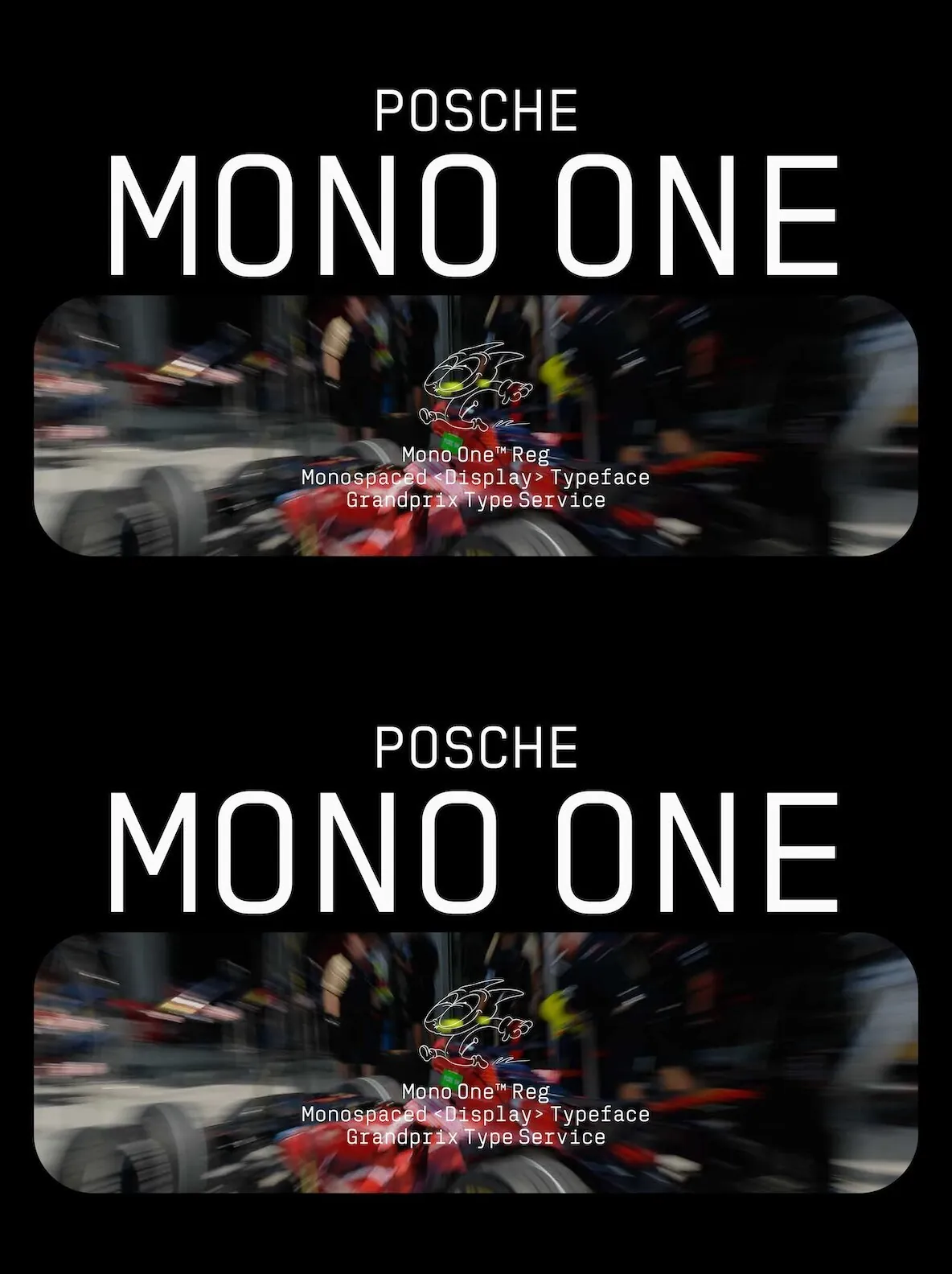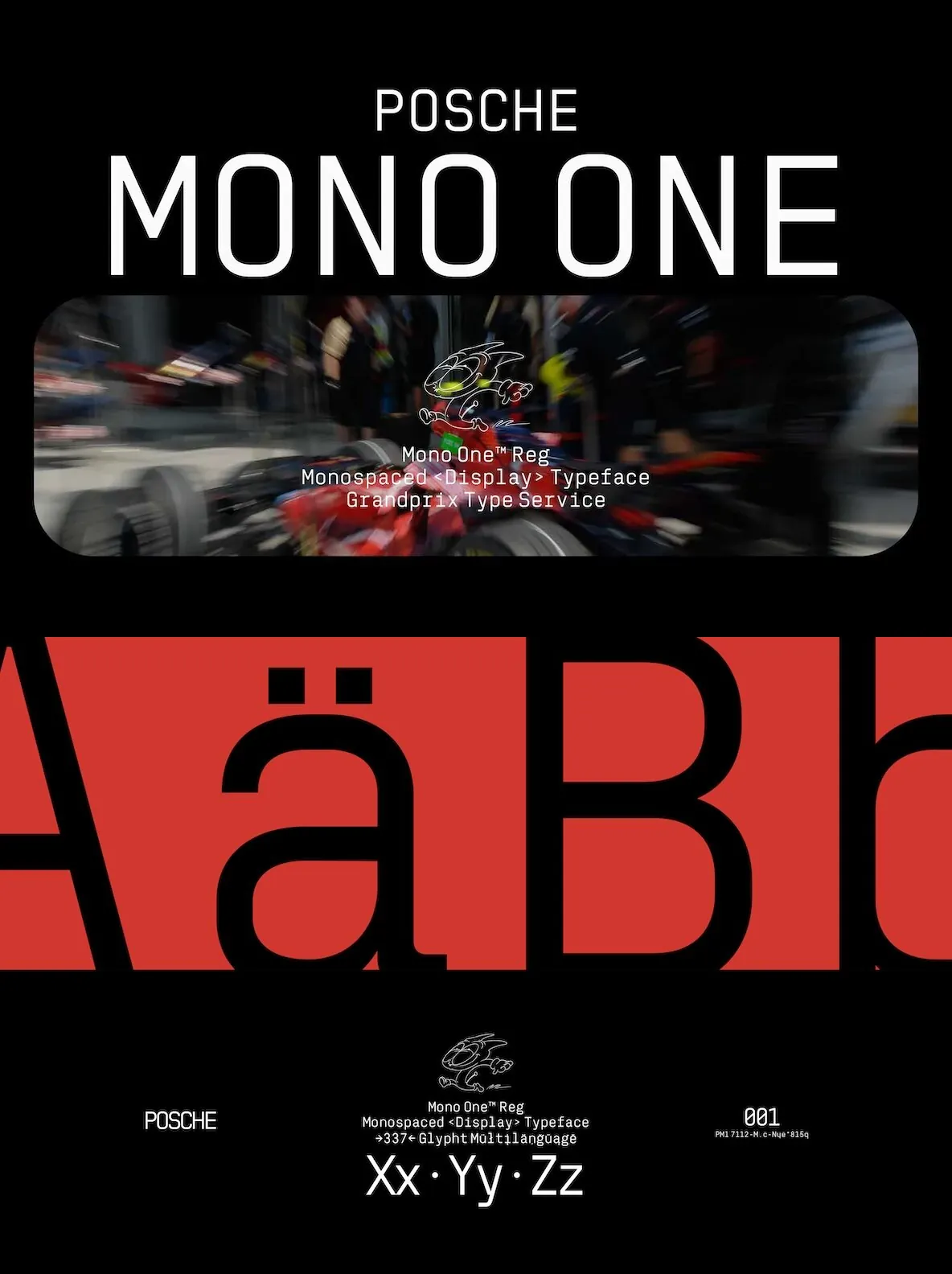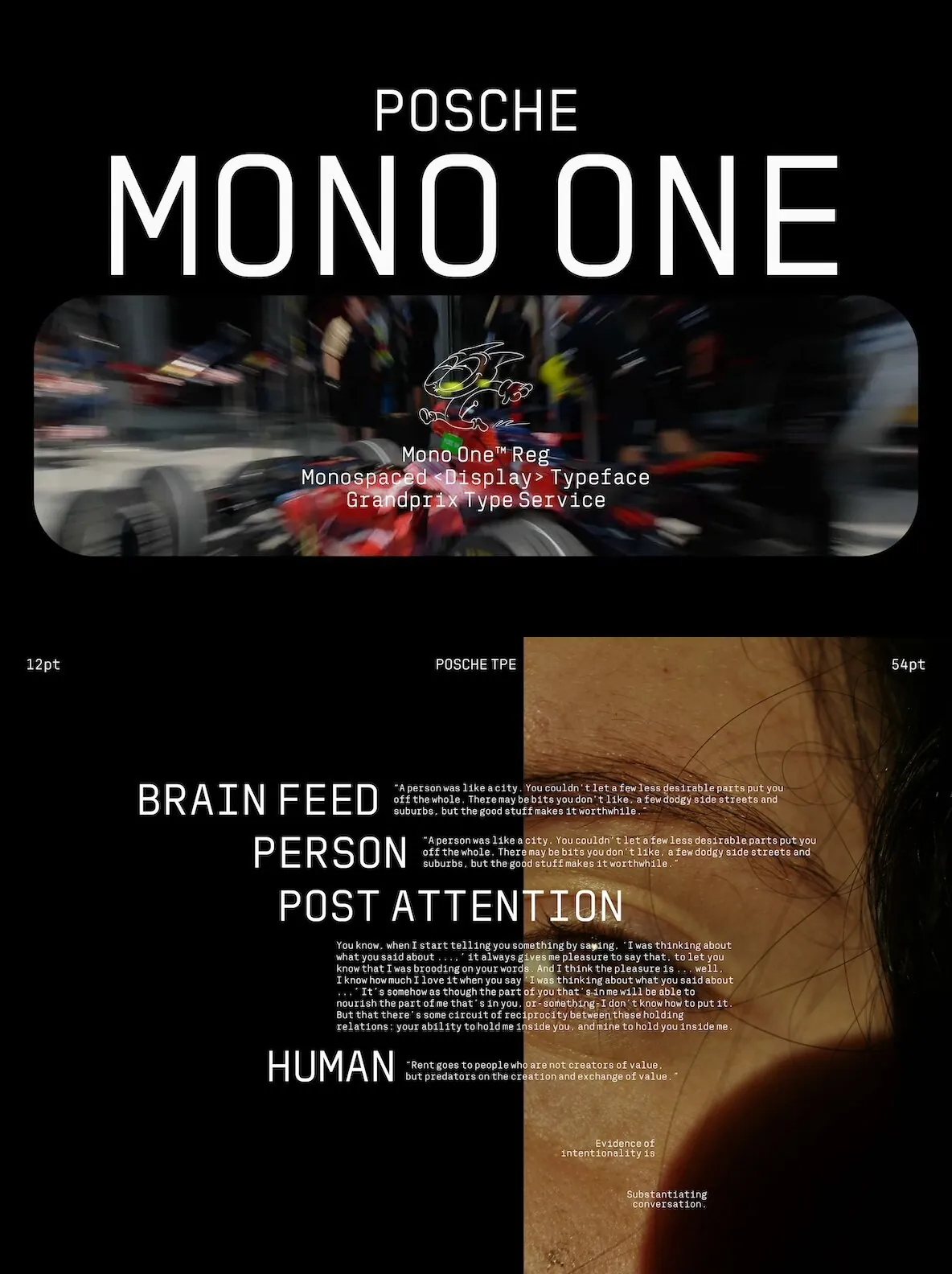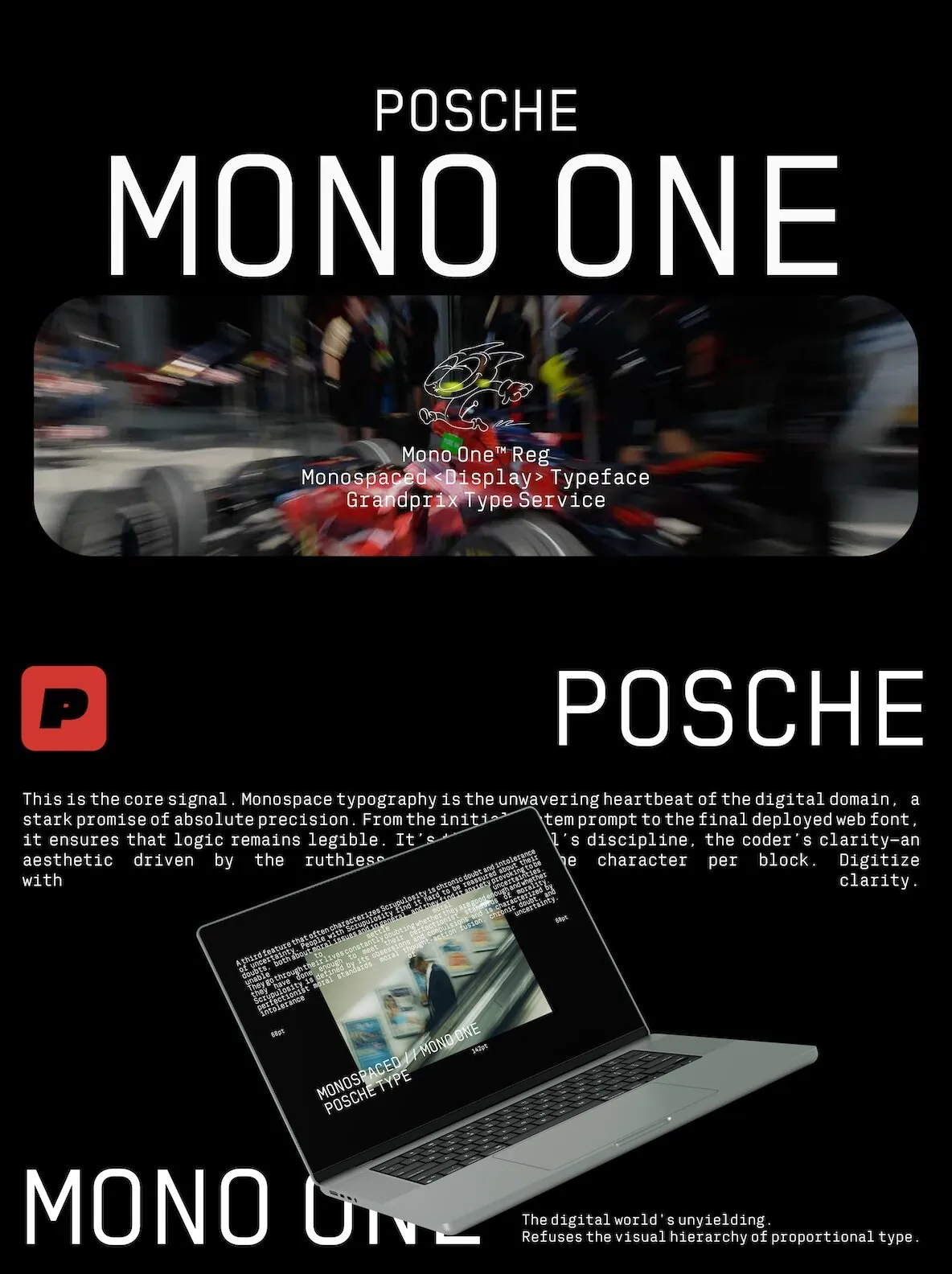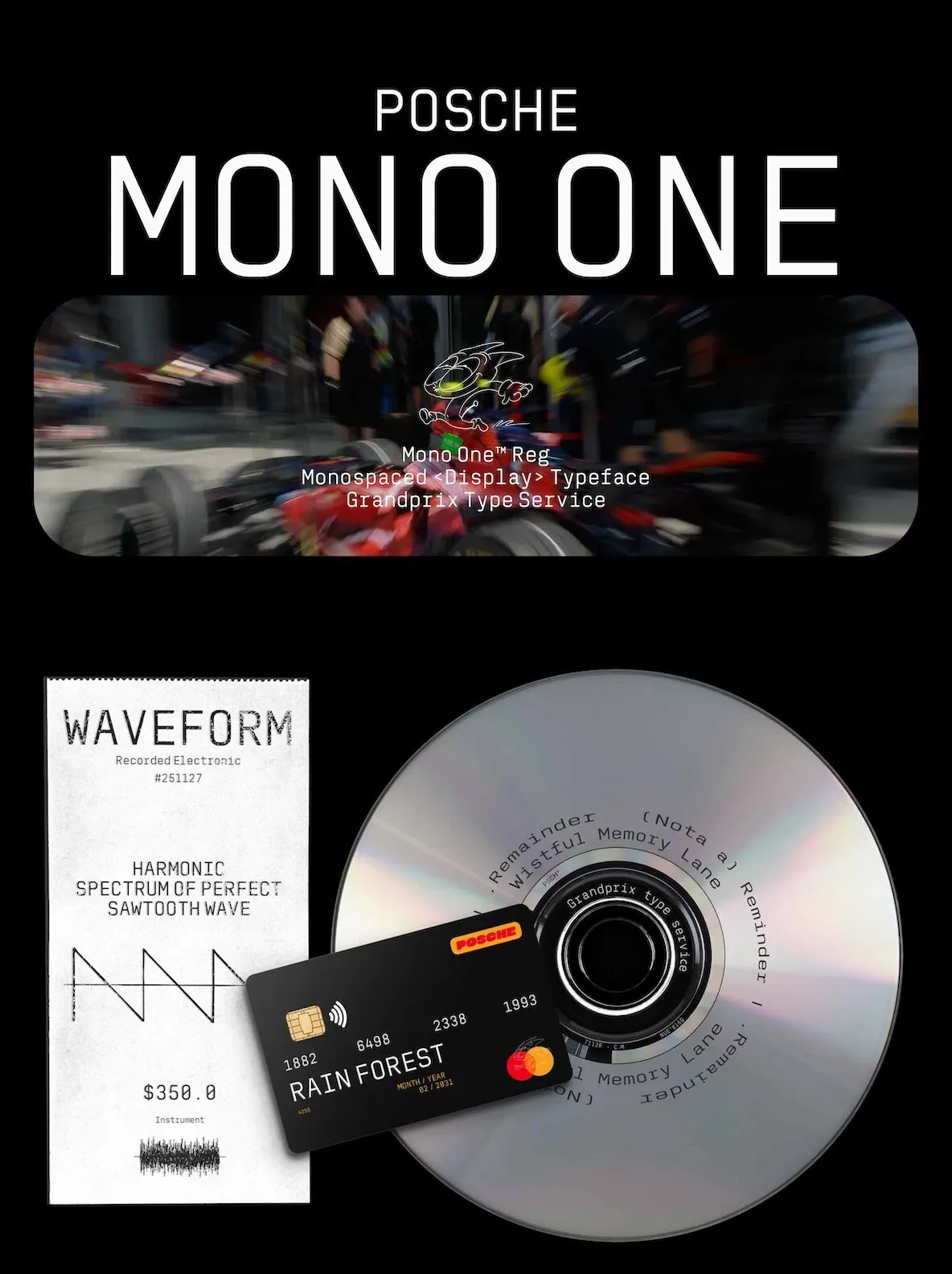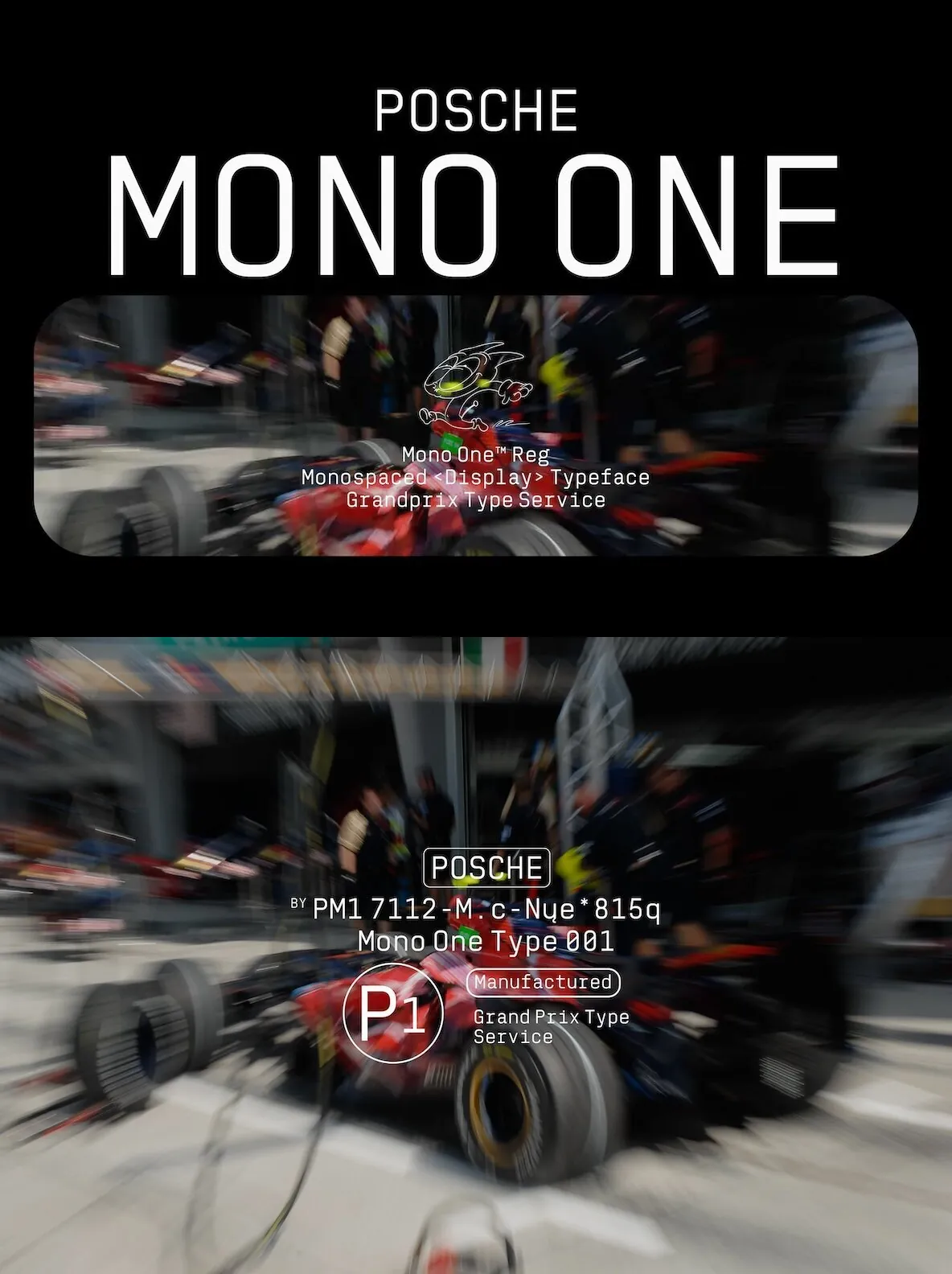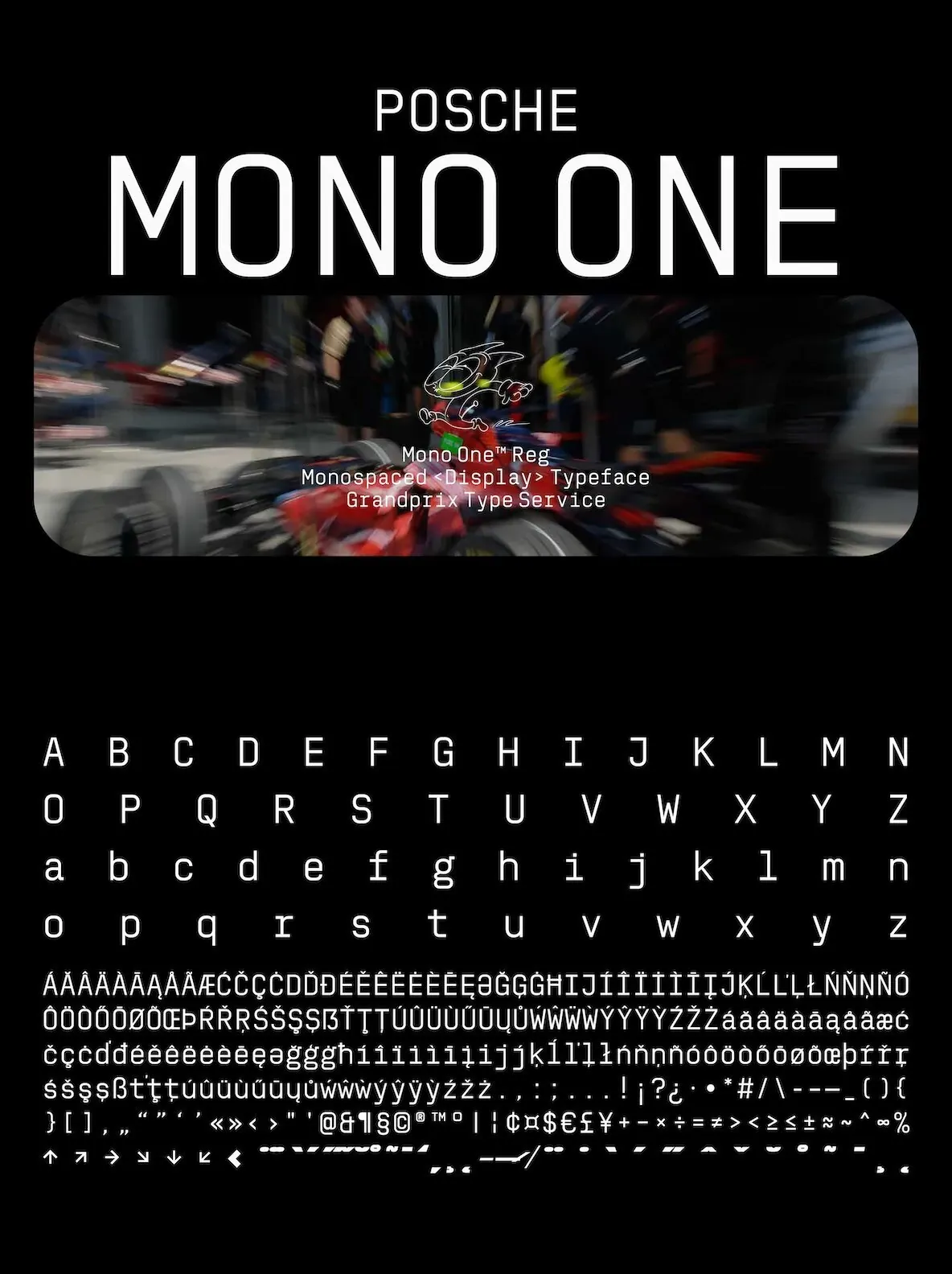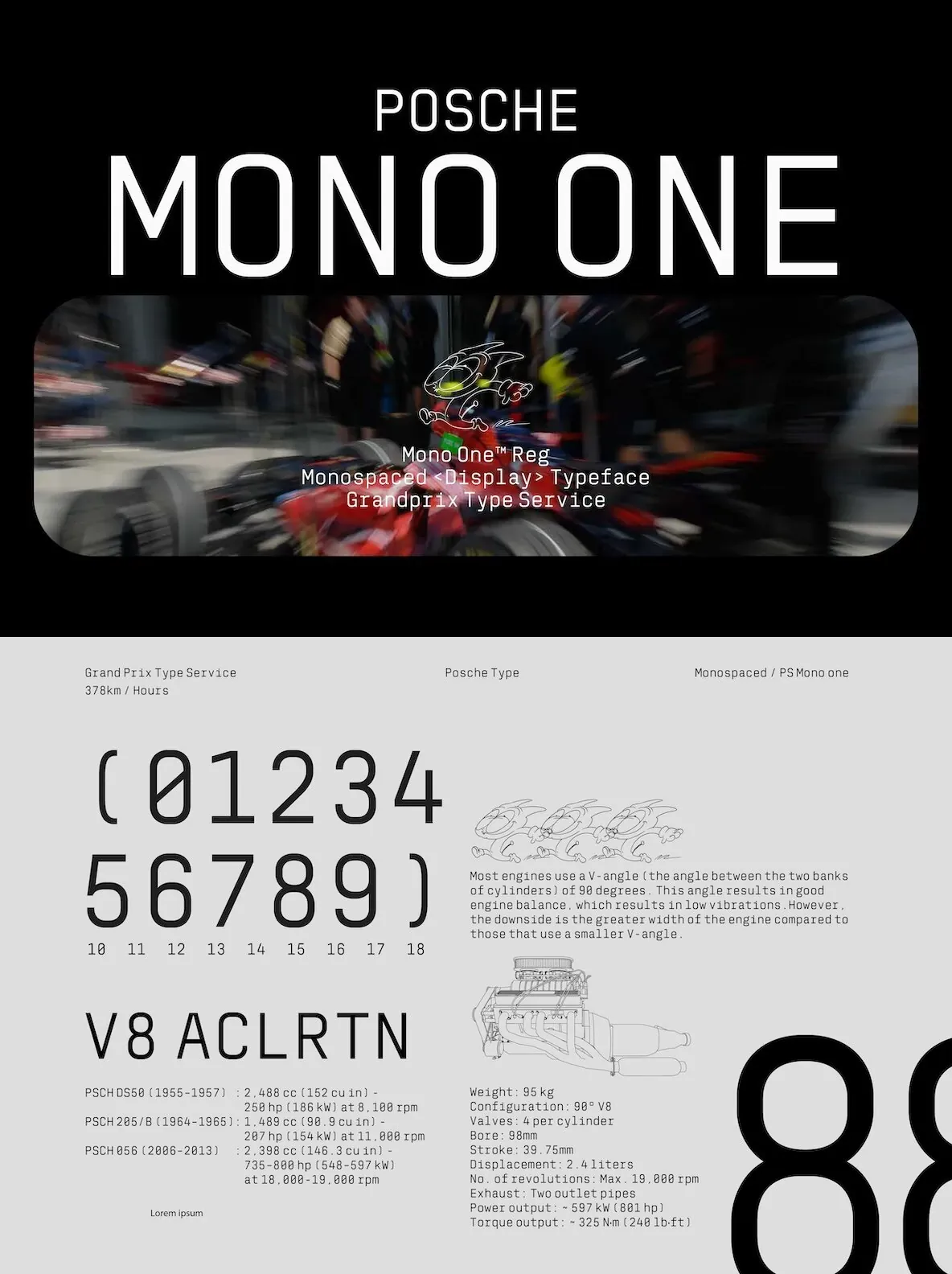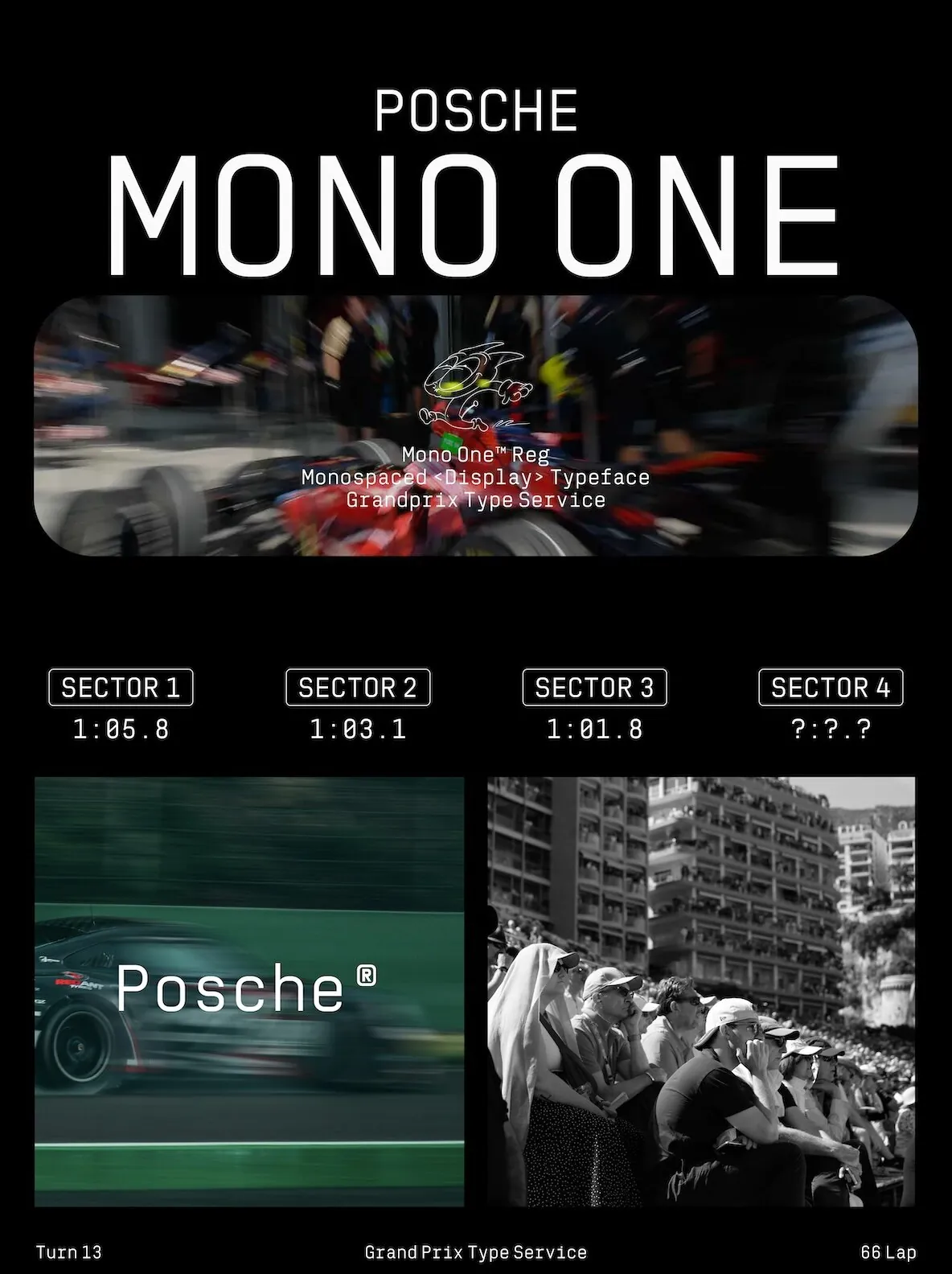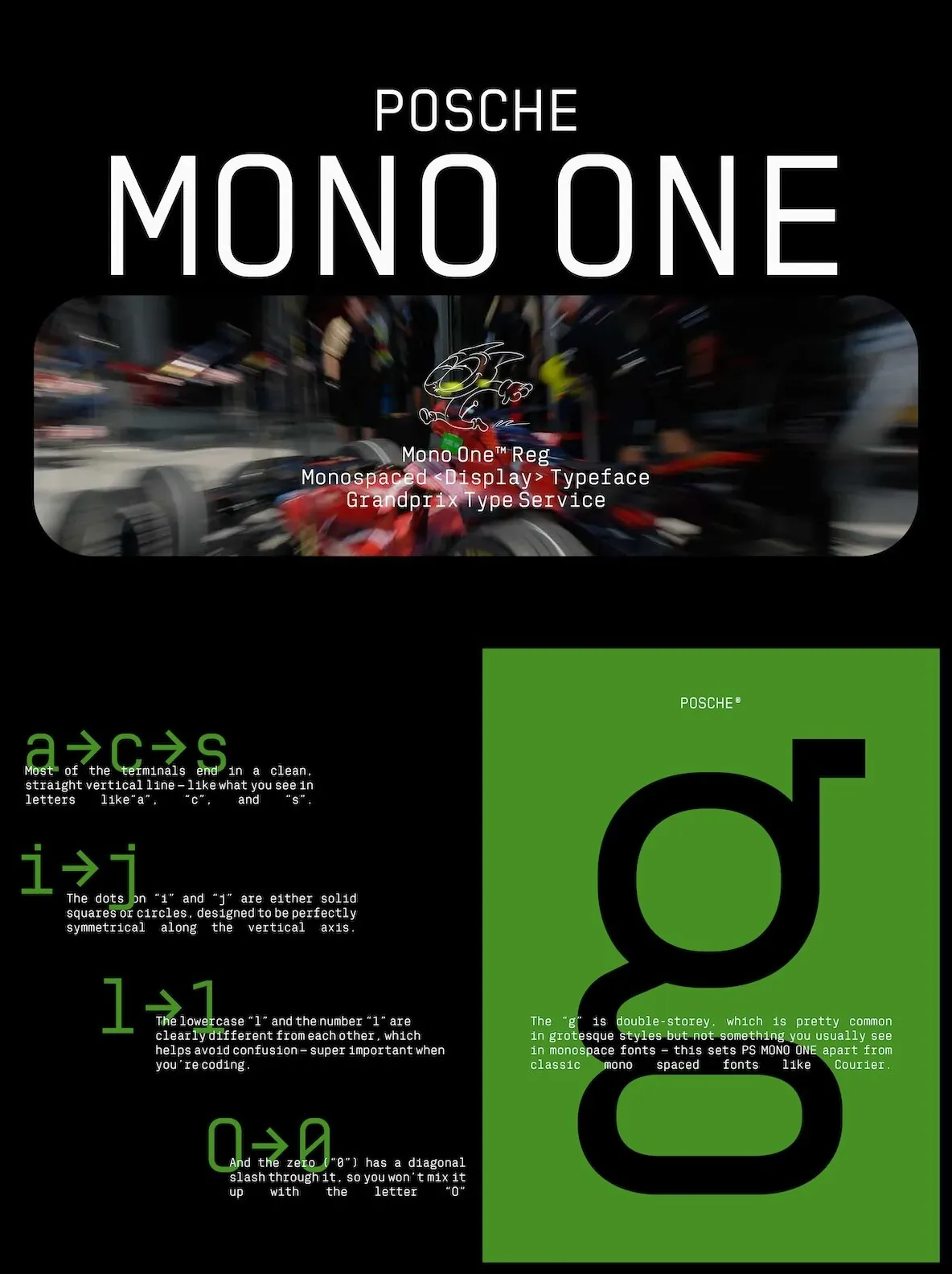
PS Mono One Font
Posche Mono One: Geometric Monospace With Technical Clarity
Posche Mono One is a geometric monospace font engineered for environments where precision and clarity are paramount. Its design revolves around strict, fixed-width proportions, resulting in clean, modern letterforms that maintain consistent vertical alignment. The arrangement of near-perfect circles, functional terminals, and open apertures provides high legibility—a vital quality for code editors, dashboards, and other utility-driven interfaces where character differentiation is essential.
This typeface’s industrial spirit is amplified by details like its single-story lowercase ‘g’ and a no-nonsense approach to line weight and spacing. Such features lend the font distinctive utility in data-heavy applications and sci-fi interface design, where a sense of advanced technology and efficiency is needed. It is particularly effective in areas that demand both style and function, standing out in data visualization, tech branding, and functional user interfaces.
While Posche Mono One may not be suited for immersive, long-form reading, it excels at organizing complex datasets and programmatic information into a structured, readable format for the contemporary design landscape.
Geometric construction for consistent alignment
Distinct character differentiation for technical workflows
Open apertures and single-story lowercase ‘g’
Ideal for coding, dashboards, and data presentation